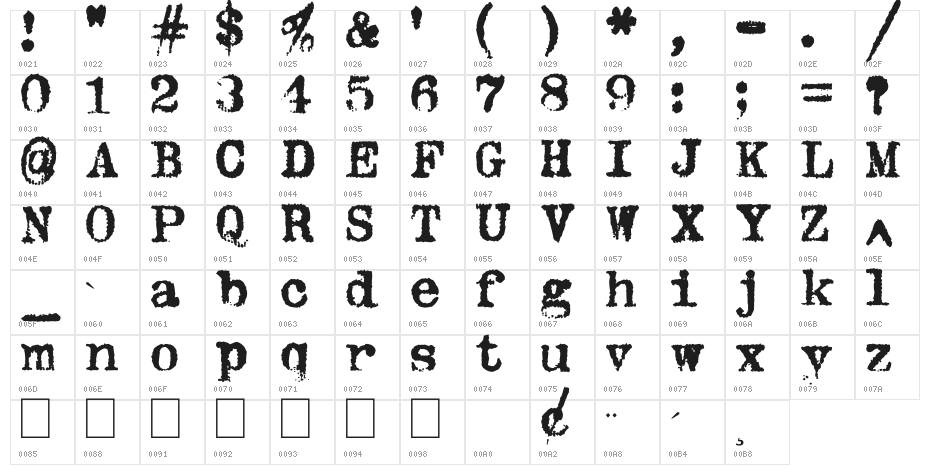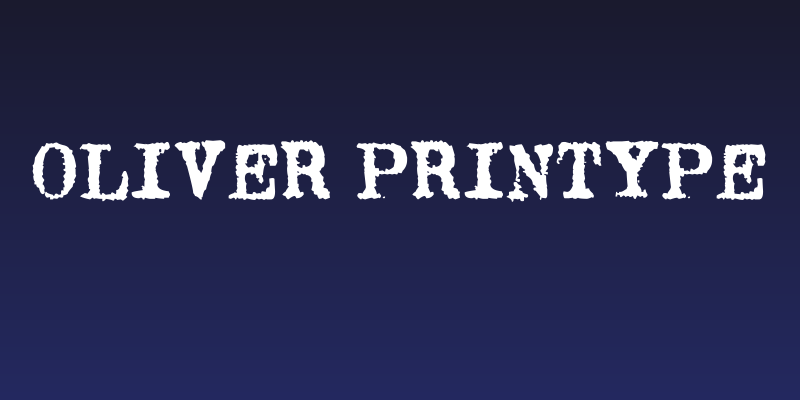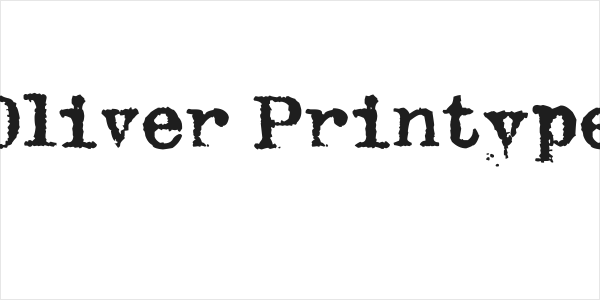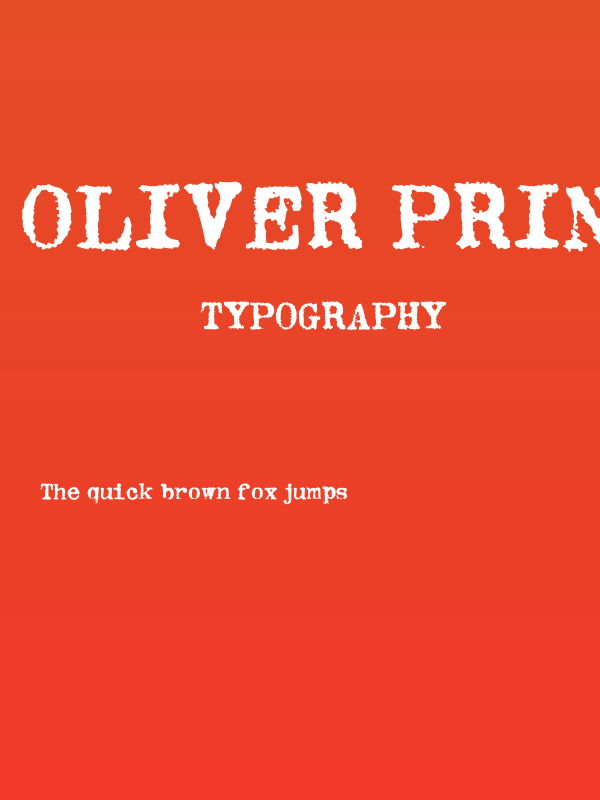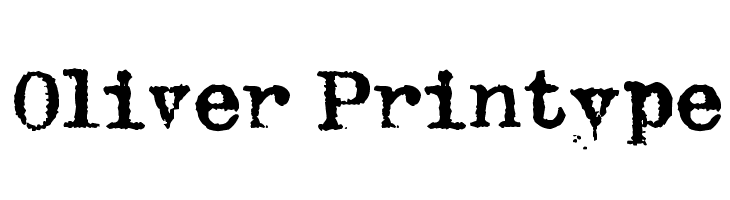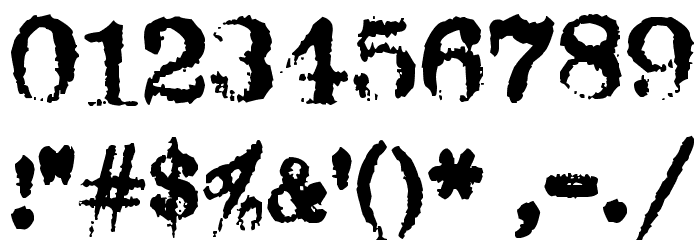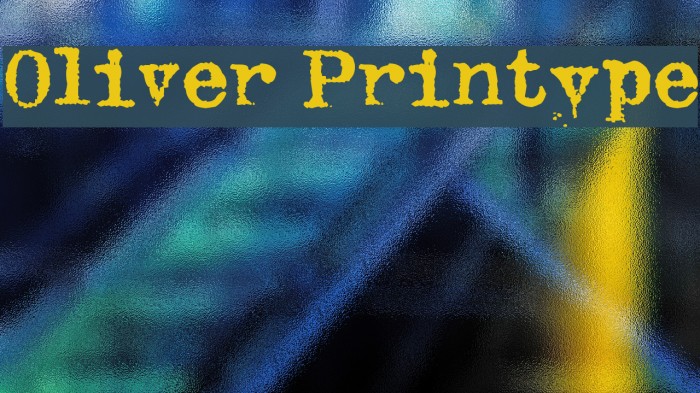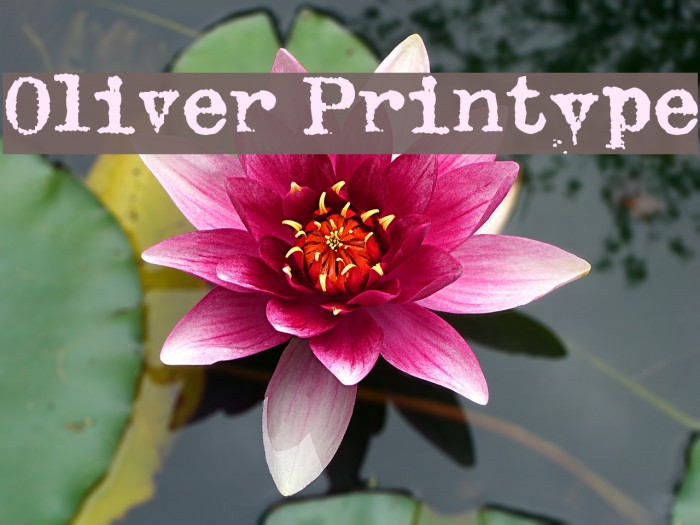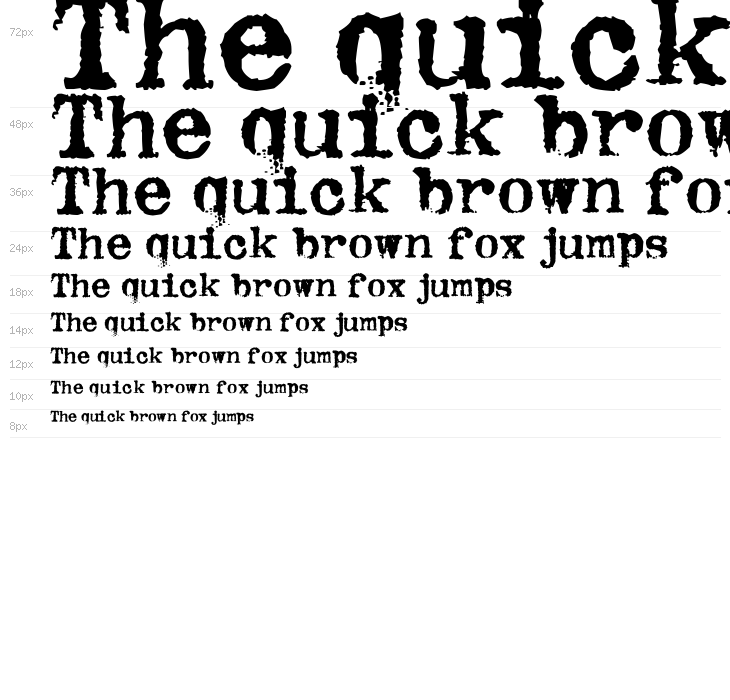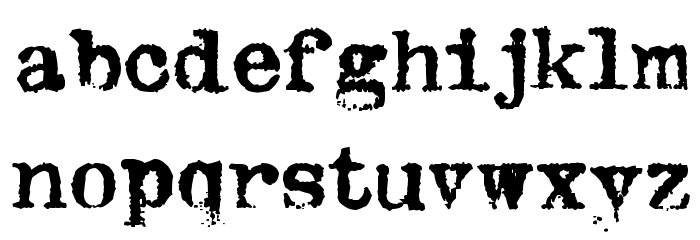
Oliver Printype Font
Oliver Printype Description
This font features a distressed, textured appearance reminiscent of old typewriter or letterpress prints. The characters have a bold, rugged look with uneven edges and a slightly worn-out feel, giving it a vintage and industrial aesthetic. The uppercase and lowercase letters maintain a consistent style, with numerals and special characters following the same design approach. This font's unique texture adds a layer of depth and character, making it stand out in any design project.
| Proposed Projects | Ideal for projects requiring a vintage or industrial look, such as posters, album covers, branding for retro-themed businesses, or any design needing a bold statement. |